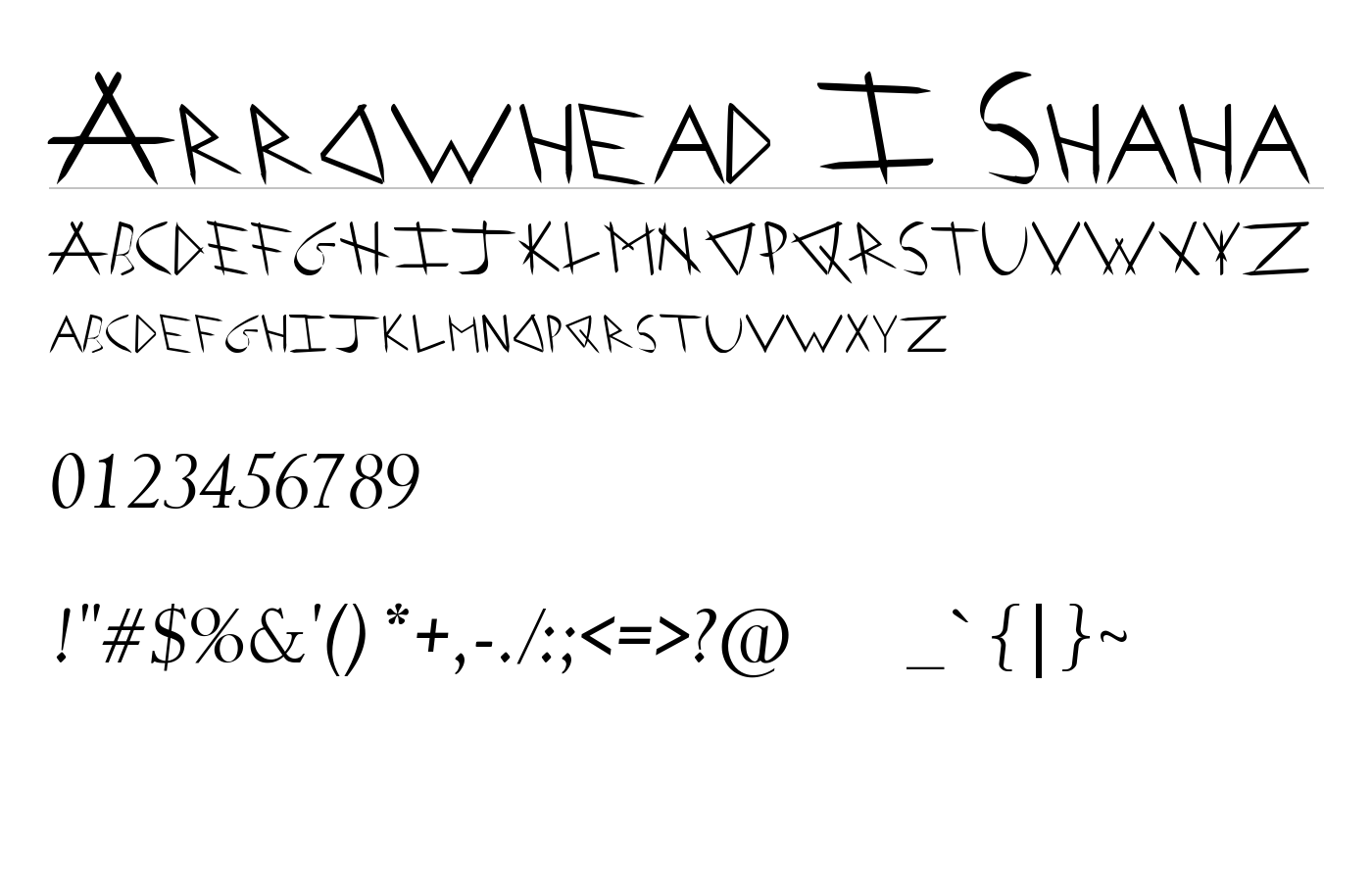
Arrowhead I Shaha is a distinctive, hand-drawn style sans serif font with irregular, sharp-edged letterforms that evoke a primitive, tribal aesthetic. Featuring a light weight with narrow widths and high contrast in stroke texture, it offers a quirky and artistic personality suited for creative, adventurous, or rustic branding and display use. This font works best for logos, posters, and headlines where its unique, raw energy can stand out and convey an unconventional, bold mood.
Arrowhead I Shaha Font